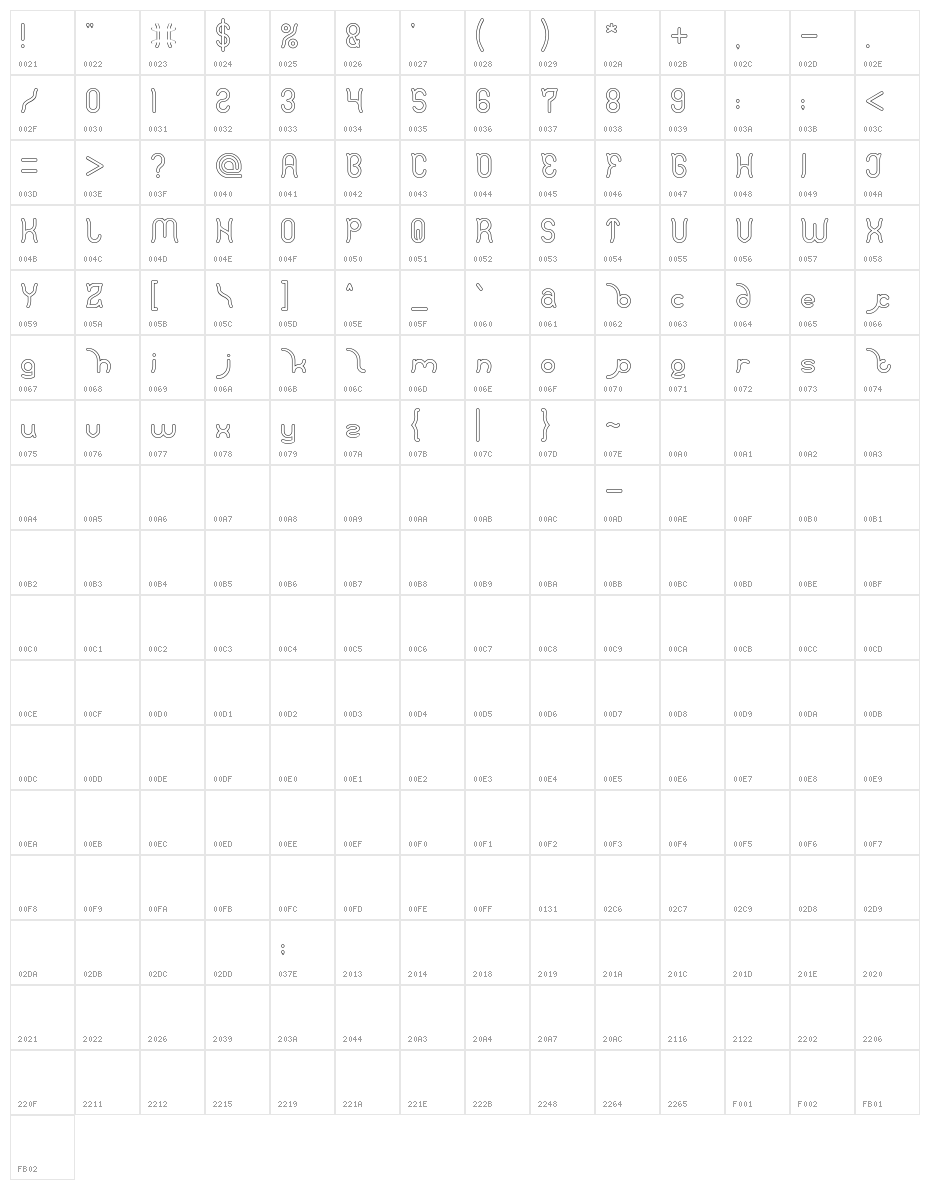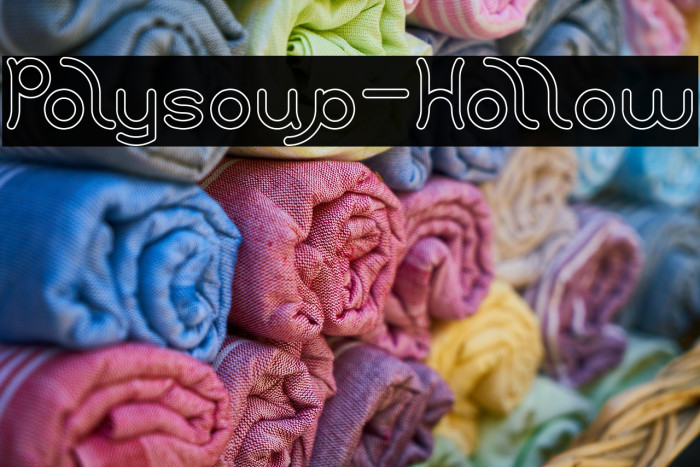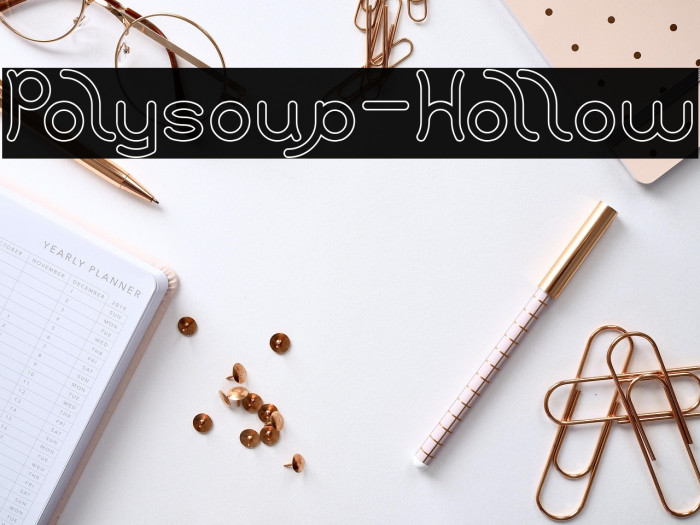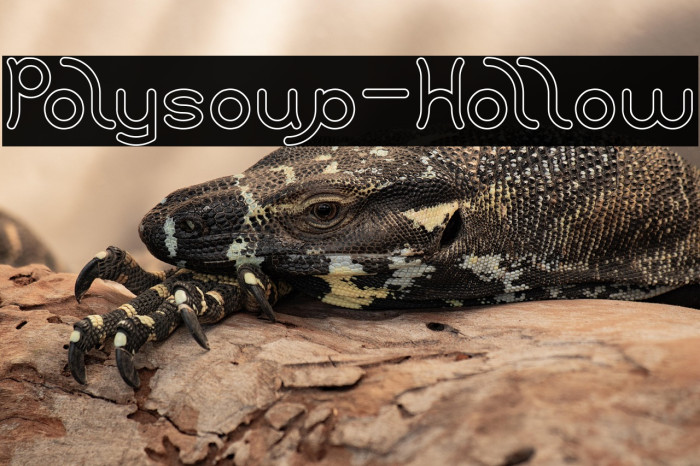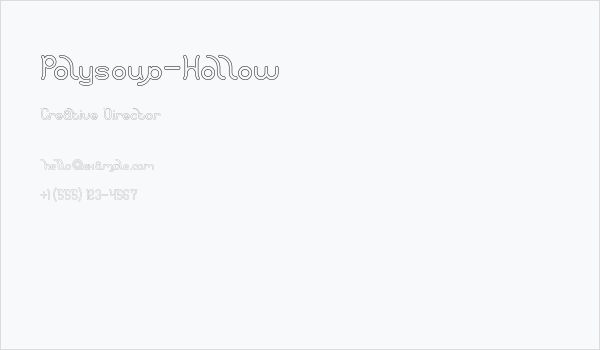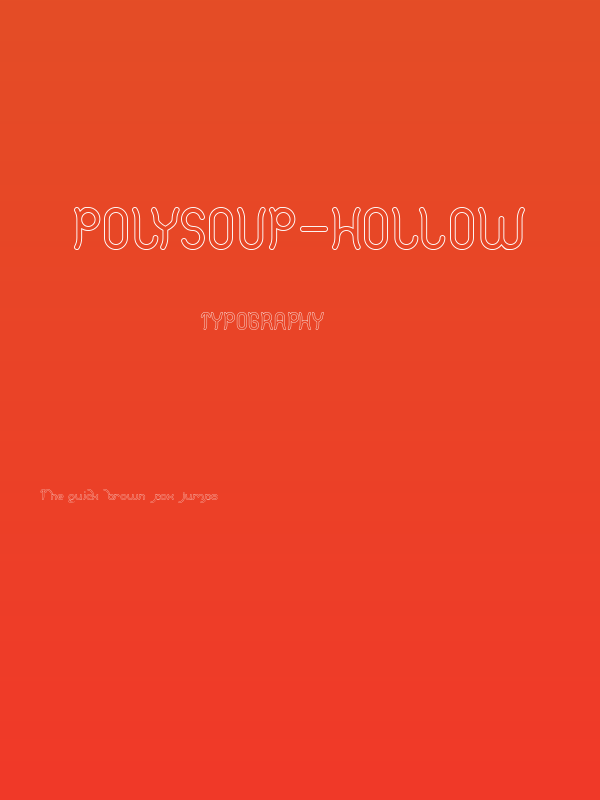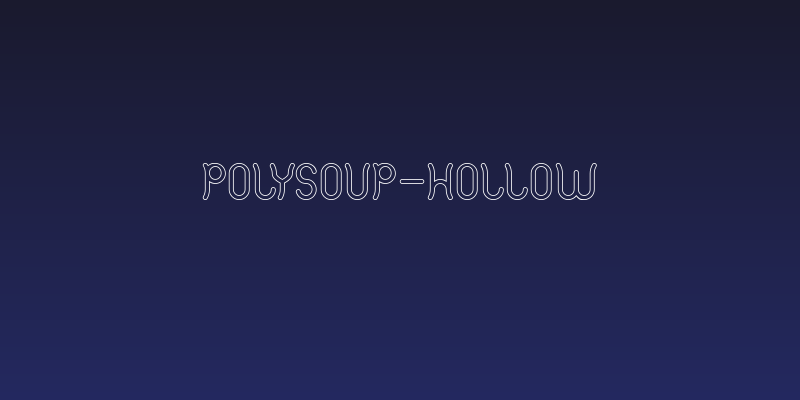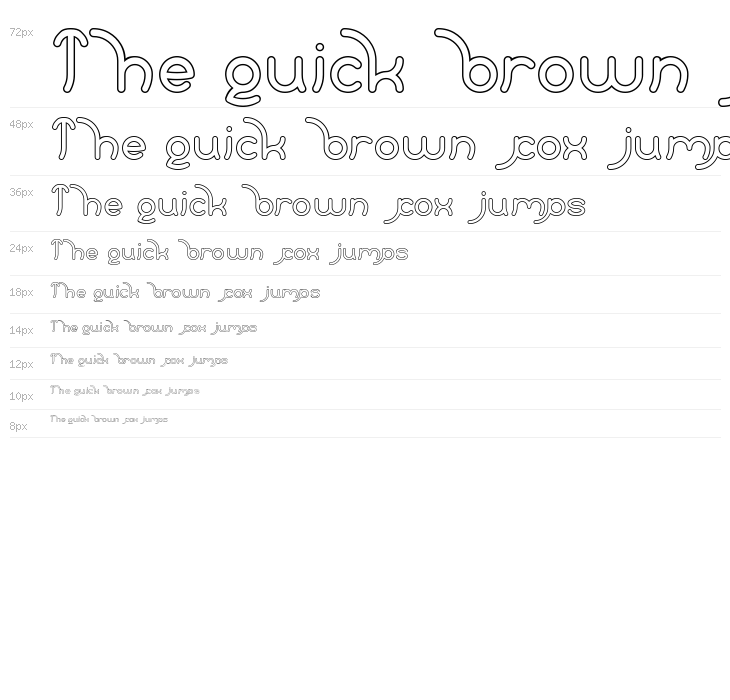
Polysoup-Hollow Font
Polysoup-Hollow Description
This font features a unique hollow design with a playful and artistic flair. The characters are outlined, creating a sense of openness and lightness. The uppercase letters have a consistent height and width, while the lowercase letters maintain a similar style with slightly more variation in form. The numbers are clear and legible, following the same hollow design. Special characters are creatively integrated, maintaining the overall aesthetic. This font's distinct style makes it ideal for creative projects that require a modern and artistic touch.
| Use Case | Logos, Posters, Invitations |
| Proposed Projects | Ideal for creative posters, artistic branding, modern logos, and playful invitations. |